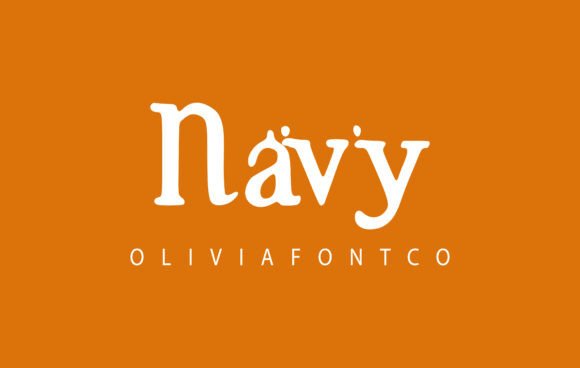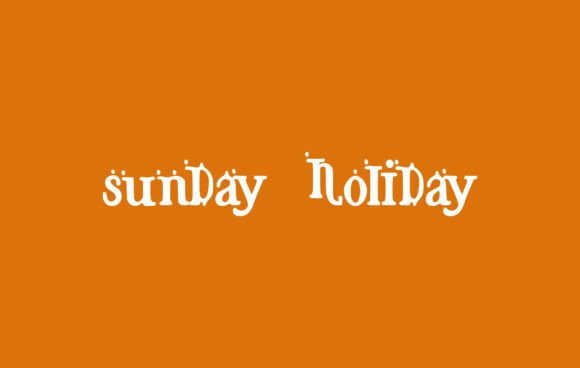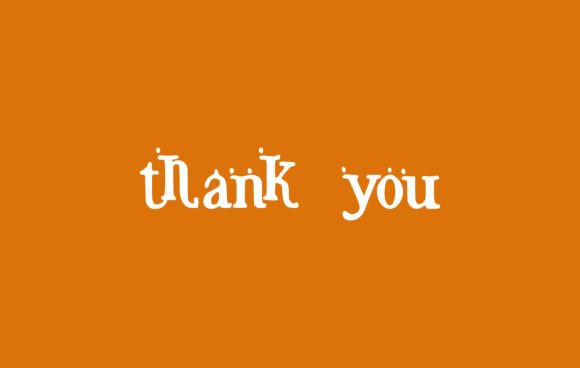
Navy Font: A Romantic Handwritten Font for Wedding Invitations
About the Navy Font
We are excited to introduce Navy Font, a must-have typeface for any serious designer. Navy font is an authentic handwritten font with a romantic touch. Expertly designed to be a true favorite, this font has the potential to take your creative ideas to the highest level
Navy Font’s romantic, handwritten style shines brightest in headlines, short text blocks on invitations or packaging, and social media graphics. Its legibility is suitable for body text in smaller doses, but its inherent informality makes it less ideal for lengthy paragraphs or UI elements where clear, concise communication is paramount.
The font’s personality is best described as charming and slightly whimsical, making it a good fit for brands focused on handcrafted goods, artisanal products, or romantic events. Consider pairing it with a clean sans-serif like Lato for contrast and readability in supporting text, or a delicate script font like Great Vibes for a cohesive, romantic feel in layered designs.
Avoid using Navy Font in contexts requiring a high degree of professionalism or modern minimalism. For stronger visual impact and better balance, pairing it with a bolder, more geometric sans-serif would help to ground its handwritten charm.